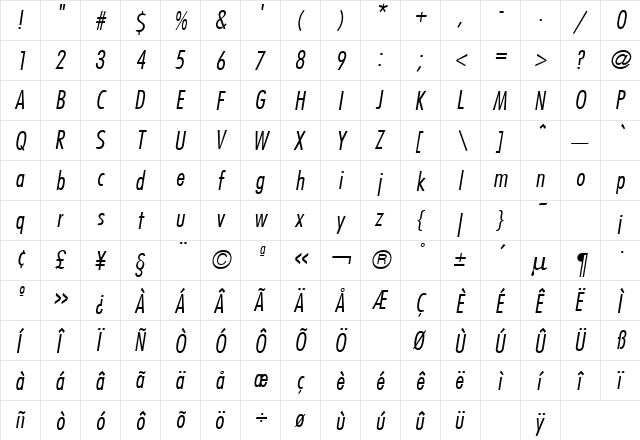
Futura Condensed Italic Font Preview
Design Context for Futura Condensed Typeface
Futura Condensed has a distinctly futuristic character, with geometric precision and clean angles that feel at home in technology, gaming, and sci-fi contexts. Its italic angle brings a sense of urgency and motion to the letterforms. The condensed width makes it efficient for tight spaces without sacrificing legibility.